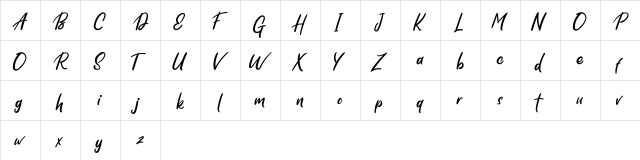
Skylight FREE Regular
| Foundry | Vunira Design |
| Designer | Vunira Design |
Design Context for Skylight FREE Typeface
Skylight FREE is a composed and adaptable typeface that performs quietly and consistently across a wide range of design contexts. Its slender proportions lend an understated elegance to any composition.